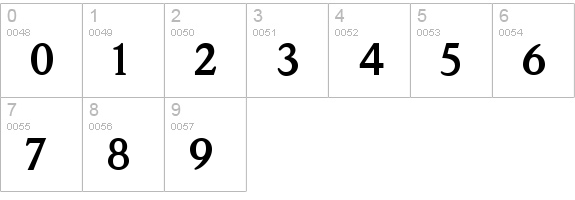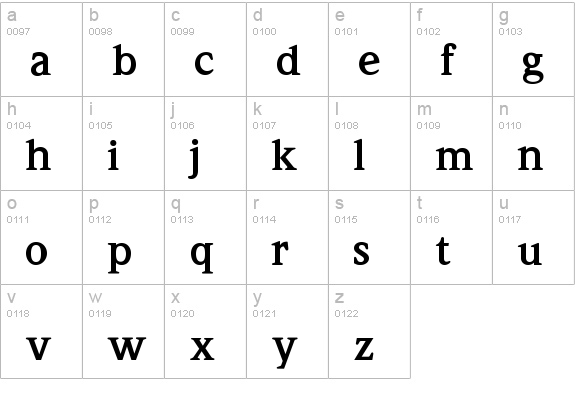
WeidemannBold Font Details
Introducing WeidemannBold, a powerful and captivating font that exudes confidence and strength. With its bold and commanding presence, WeidemannBold is perfect for making a statement and demanding attention. This font is the embodiment of versatility, as it can be used in a wide range of design projects, from logos and branding to headlines and captions. Its clean and sharp lines give it a modern and sleek look, while maintaining a timeless elegance. WeidemannBold is designed with utmost precision and attention to detail, ensuring that every letter is perfectly balanced and harmonious. Each character stands tall and proud, creating a visually stunning and impactful display. What sets WeidemannBold apart is not only its striking aesthetics, but also the fact that it is freely available to download at FontsMarket.com. This means that designers and creatives can have access to this extraordinary font without any cost or restrictions. It is a gift to the design community, empowering individuals to unleash their creativity and elevate their projects without any limitations. Whether you are embarking on a new branding campaign, designing a magazine spread, or creating eye-catching advertisements, WeidemannBold is the perfect choice to make a bold statement. Its versatility, elegance, and availability make it a valuable asset in any designer's toolkit. Download WeidemannBold today from FontsMarket.com and experience the power and beauty of this remarkable font.